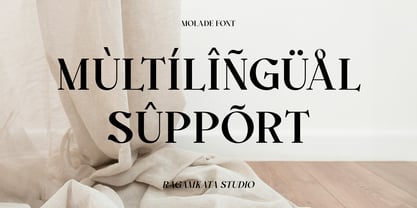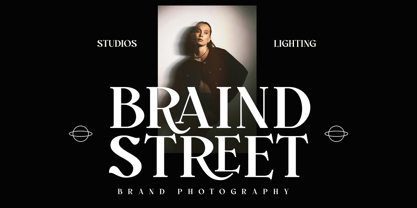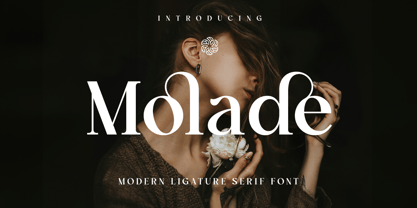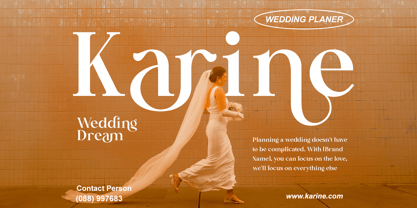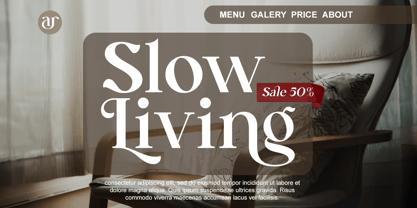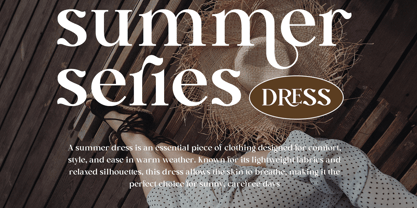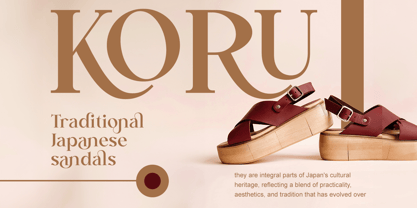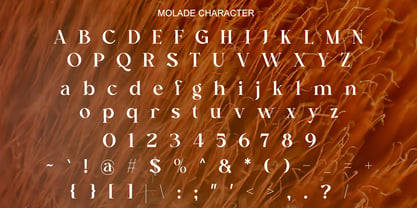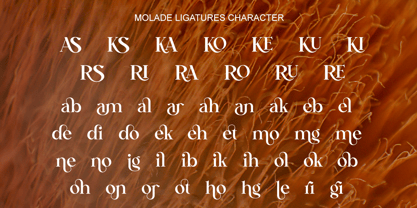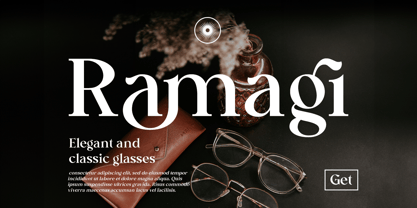
Molade
by RagamKata
The Molade Font Family was designed by Yogiswhara Dio Prakoso Riadi and published by RagamKata. Molade contains 2 styles and family package options. More about this family
Molade is modern ligature serif font with italic style. Perfectly crafted for sophisticated and high-end designs, Molade brings a touch of modern and refinement to any project. Ideal for branding, editorial layouts, invitations, and luxury packaging, enhances every design with its upscale aesthetic.
- Stylistic Ligatures
Designers: Yogiswhara Dio Prakoso Riadi
Foundry: RagamKata